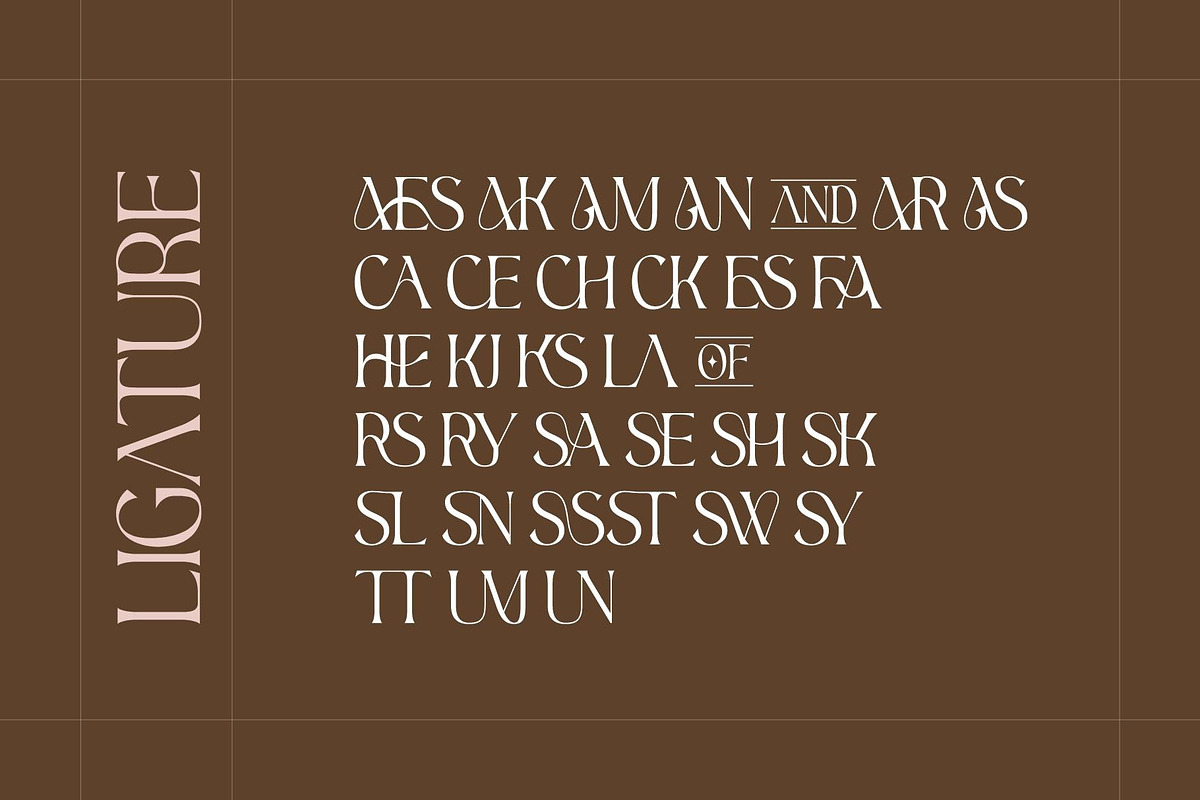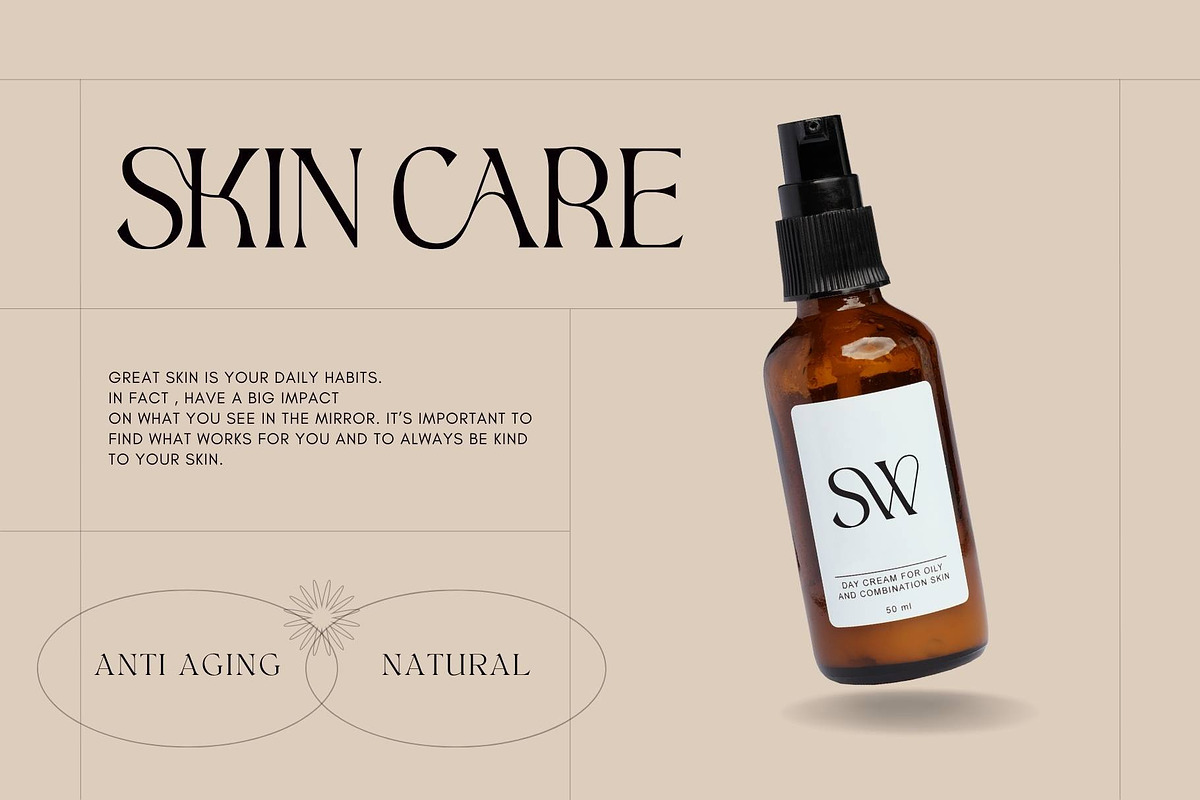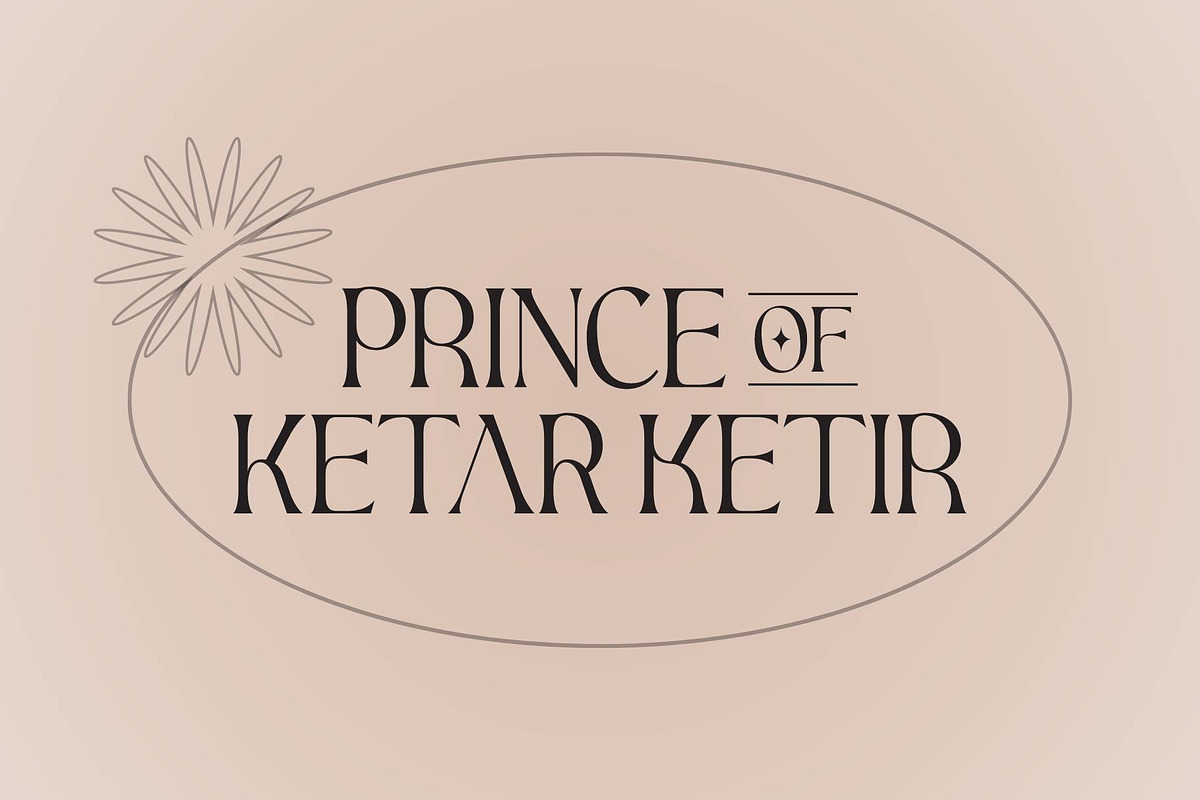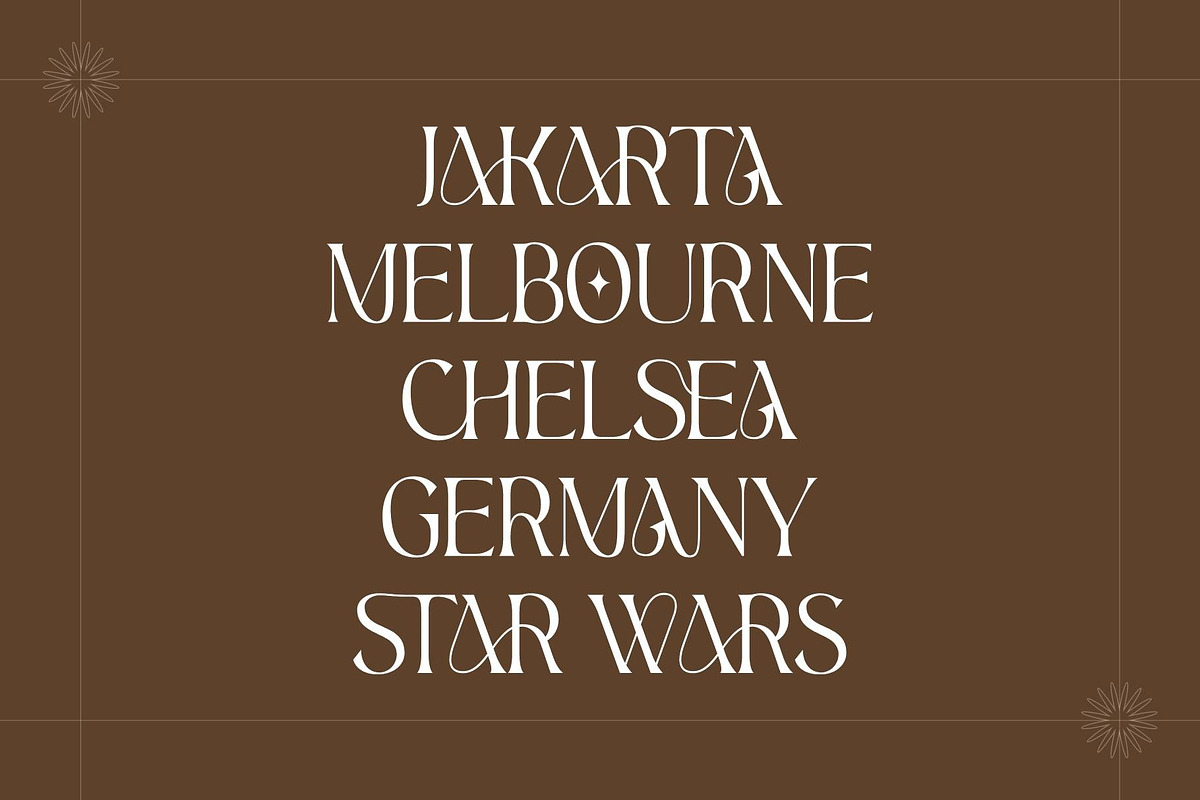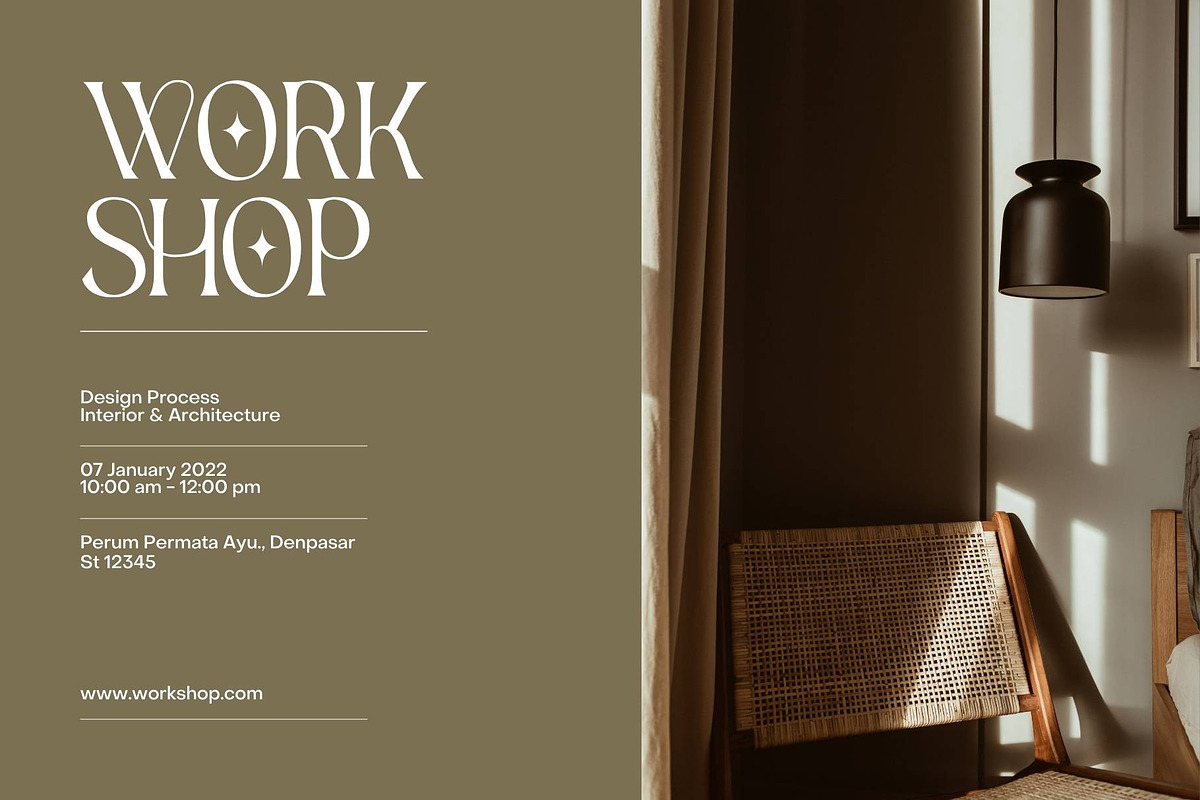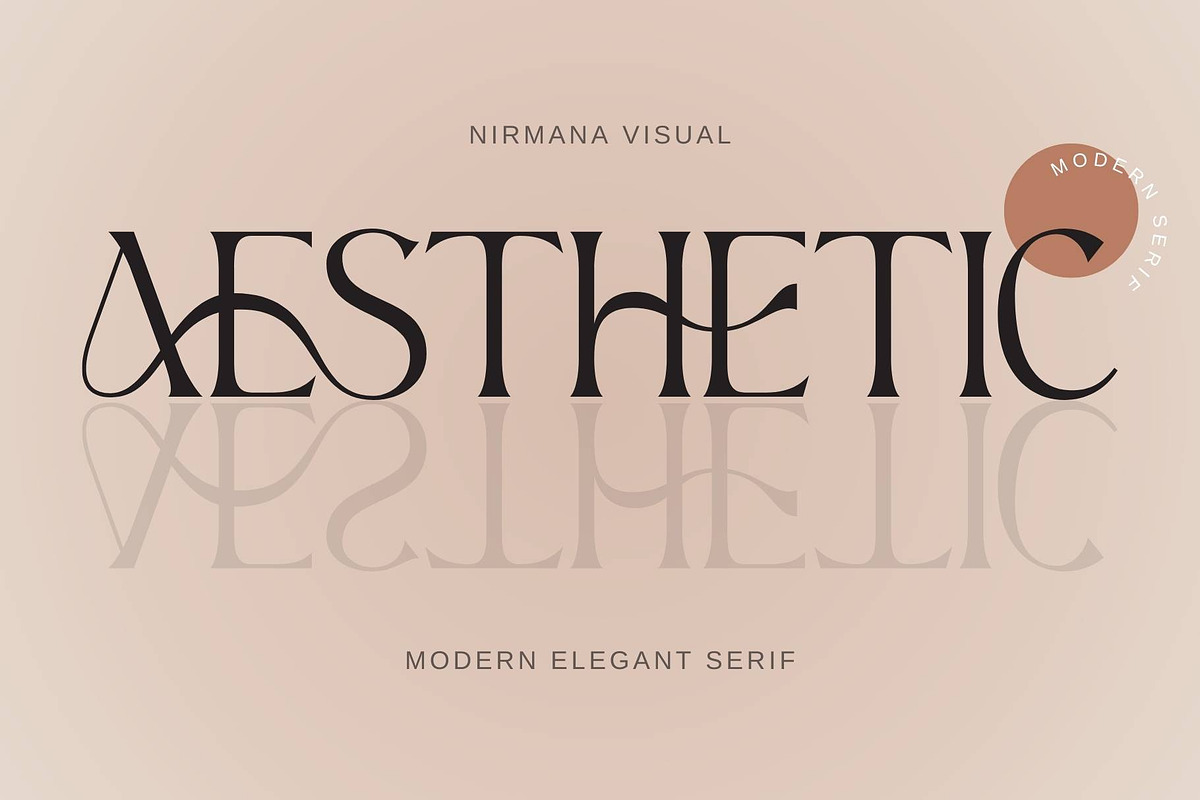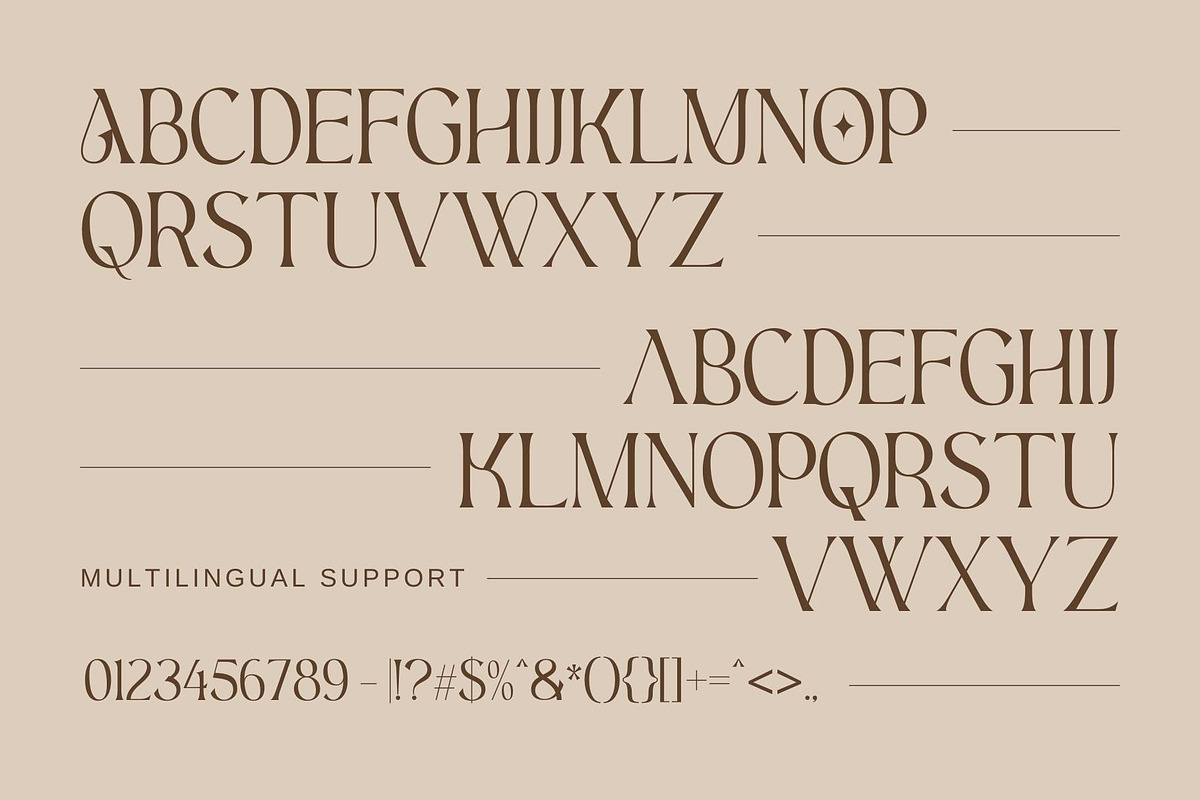
Aesthetic - Modern Display Serif
Aesthetic is a modern Serif font that is both memorable and stylish. It's a mix between a classic serif and a futuristic sans serif.
This font is perfect for fashion related branding or editorial design and displays both masculine and feminine qualities.